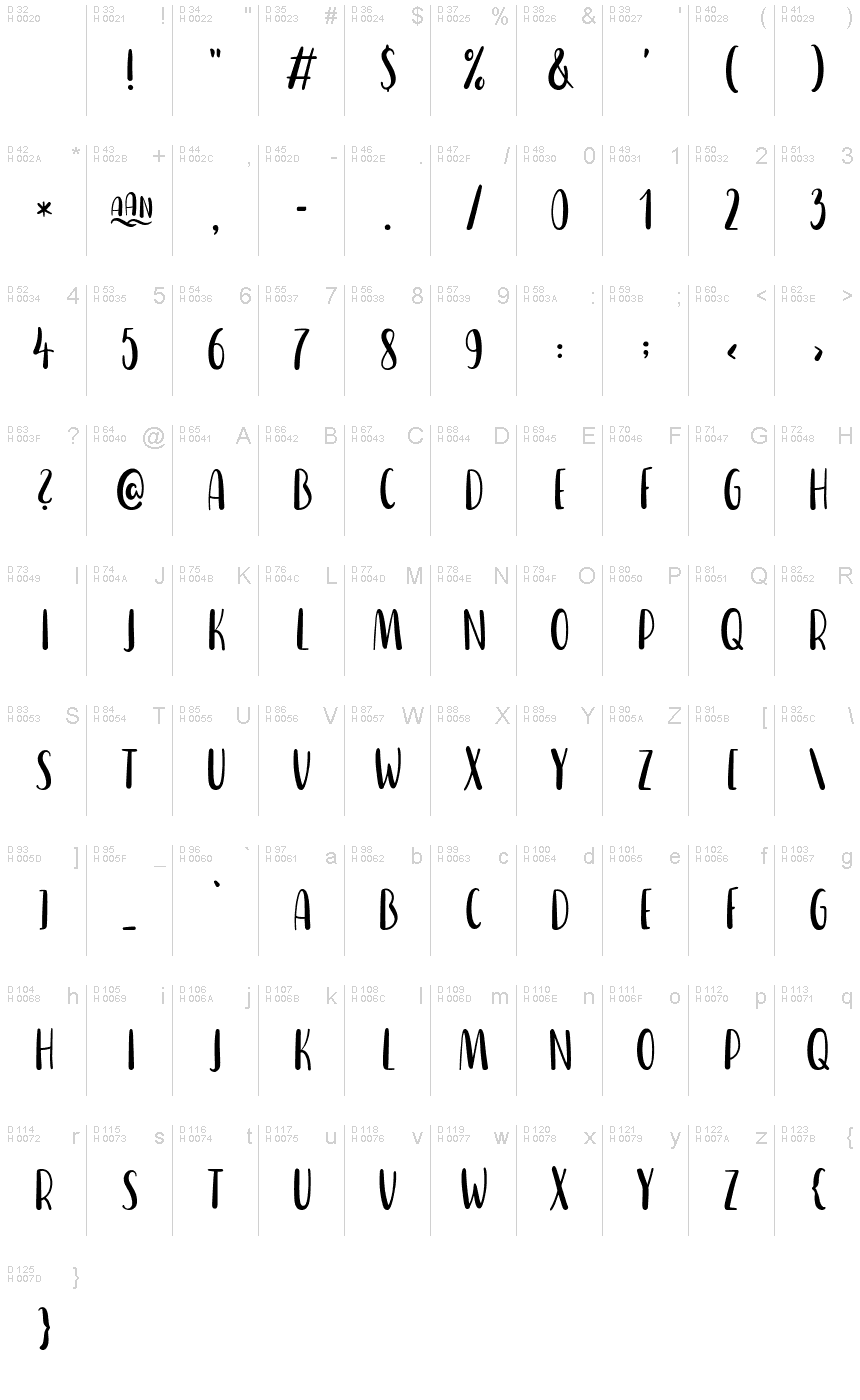
Noordwijk aan Zee font is a brilliant script typeface designed by Shaped Fonts.
This project is meant to be a tribute to one of my most favourite places on earth. Its a place where I can truly calm myself down and feel at home. Its a place that accompanied me my whole life and has given me so much joy. Introducing Noordwijk aan Zee, a beautiful dutch city at the north sea and now also my latest font project.
The handwritten font features a messy, but still clean look that can be used for any kind of packaging, menu card or book cover. Of course there are many other purposes this font can be used for. Weve created sixteen individual letter pairs, so that the font always has a very natural and authentic handwritten look to it.